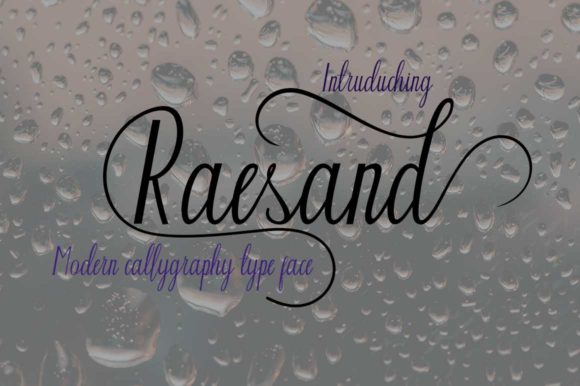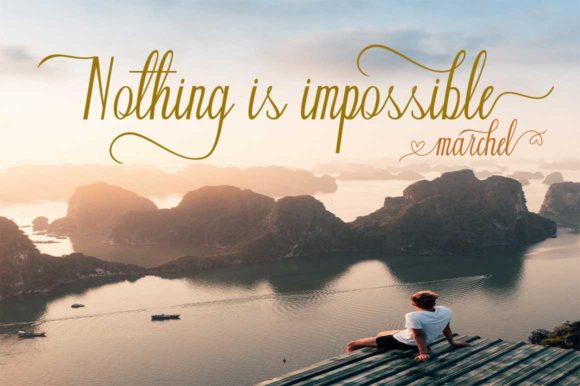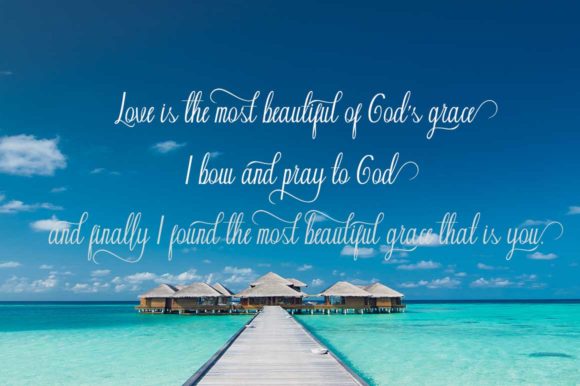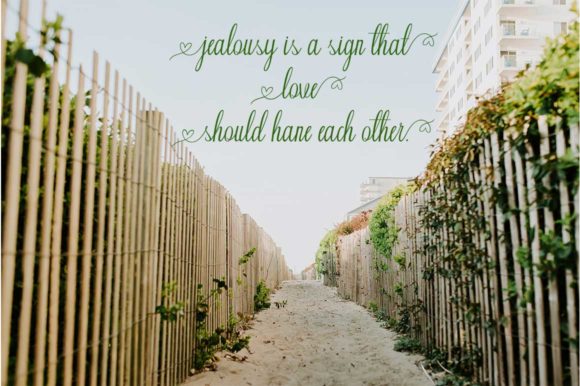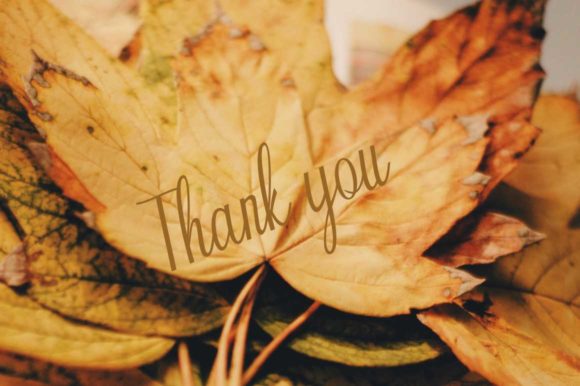
HomeScript FontsRaesand Font Script Fonts Raesand Font FacebookXPinterestWhatsApp Raesand Font Poster 2 Raesand Font Poster 3 Raesand Font Poster 4 Raesand Font Poster 5 About Raesand Font Raesand is a modern and unique calligraphy font with a bold twist. Fall in love with its extravagant swashes. DOWNLOAD ON CREATIVE FABRICAThis font is sold and delivered by Creative Fabrica. Font Canyon may earn a commission if you buy through this link. People also explored Aloha Font Kartina Font June Molly Font Zemona the Dino Font Beyond Font Design Font Rootbeer Font Sunflower Font Paralucent Stencil 496 0 TagsRaesand Font Previous articleBluebird FontNext articleThe Mother Font LEAVE A REPLY Cancel reply Comment: Please enter your comment! Name:* Please enter your name here Email:* You have entered an incorrect email address! Please enter your email address here Website: Save my name, email, and website in this browser for the next time I comment. Personal Use Free Mowgli Personal Use Free Read more about this font Muthiara Font Personal Use Free Read more about this font Tanpax Personal Use Free Read more about this font Round Geometric Personal Use Free Read more about this font BLOG Best Fonts for YouTube Videos: Make Your Thumbnails Stand Out Best Fonts for YouTube Videos: Make Your Thumbnails Stand Out Choosing the right font can make a massive difference in how your YouTube videos perform.... How to Cut Any Font on Cricut: Convert a Font to SVG (Free) Exploring Font Trends The 10 Best Handwriting Fonts to Add Personality to Your Designs